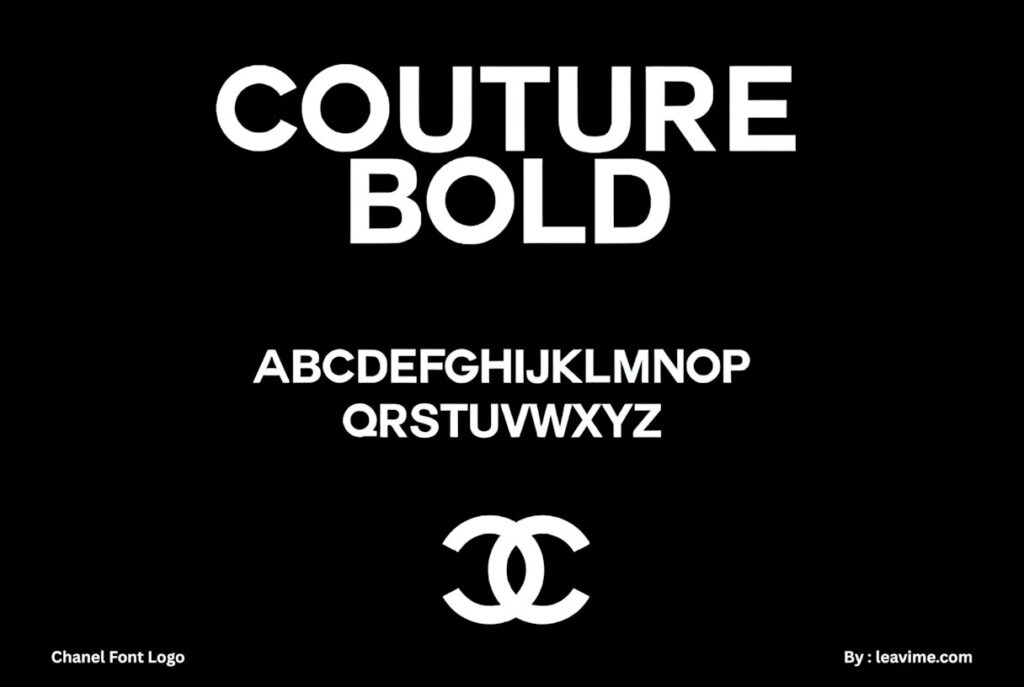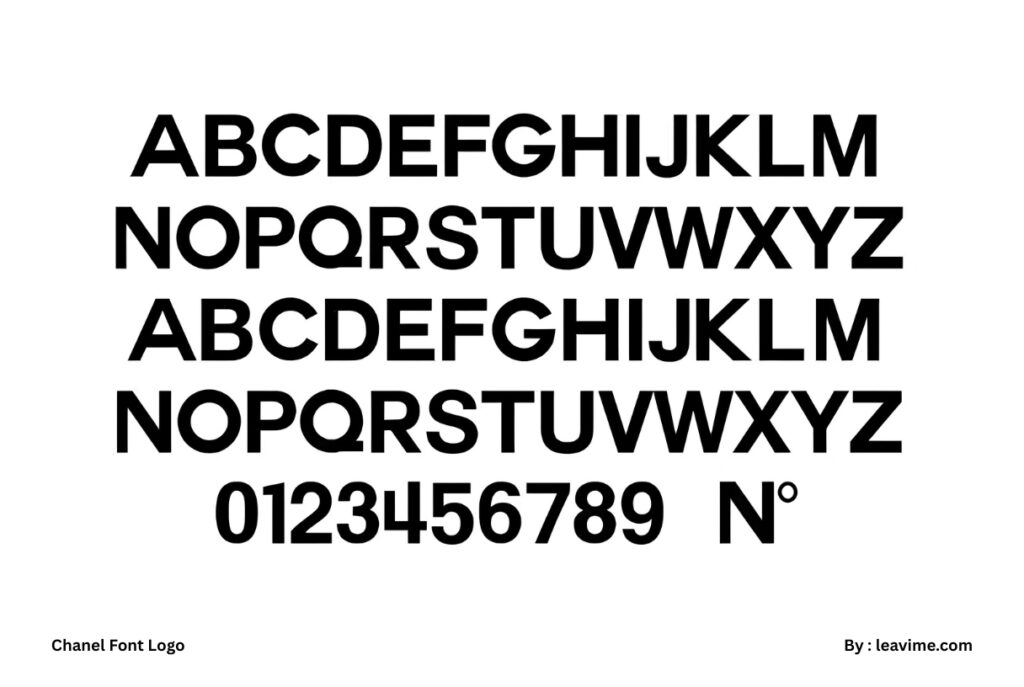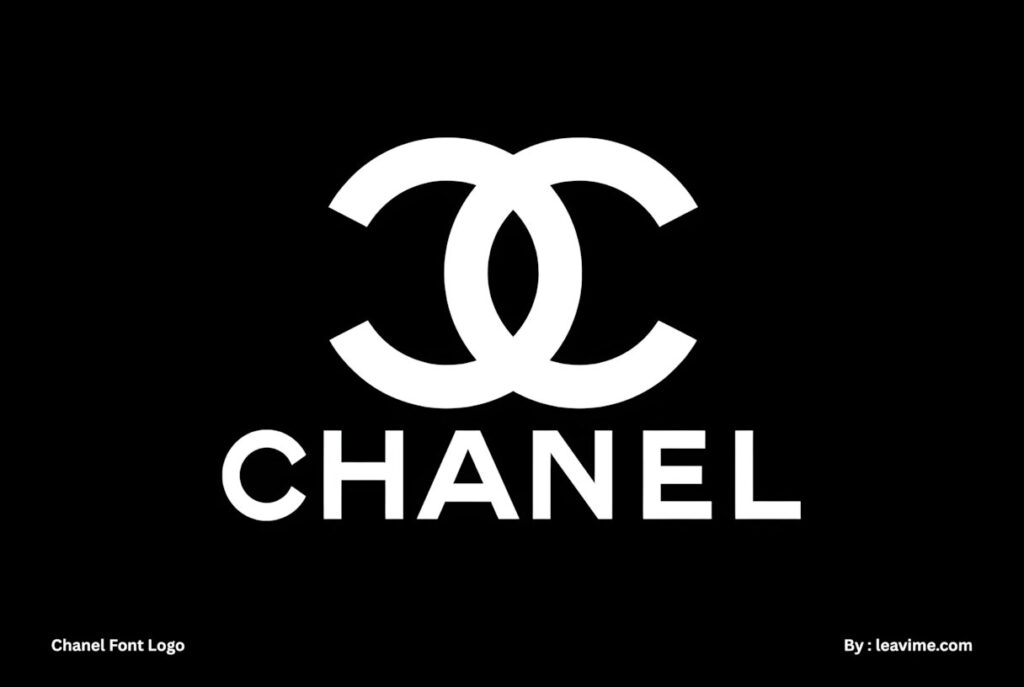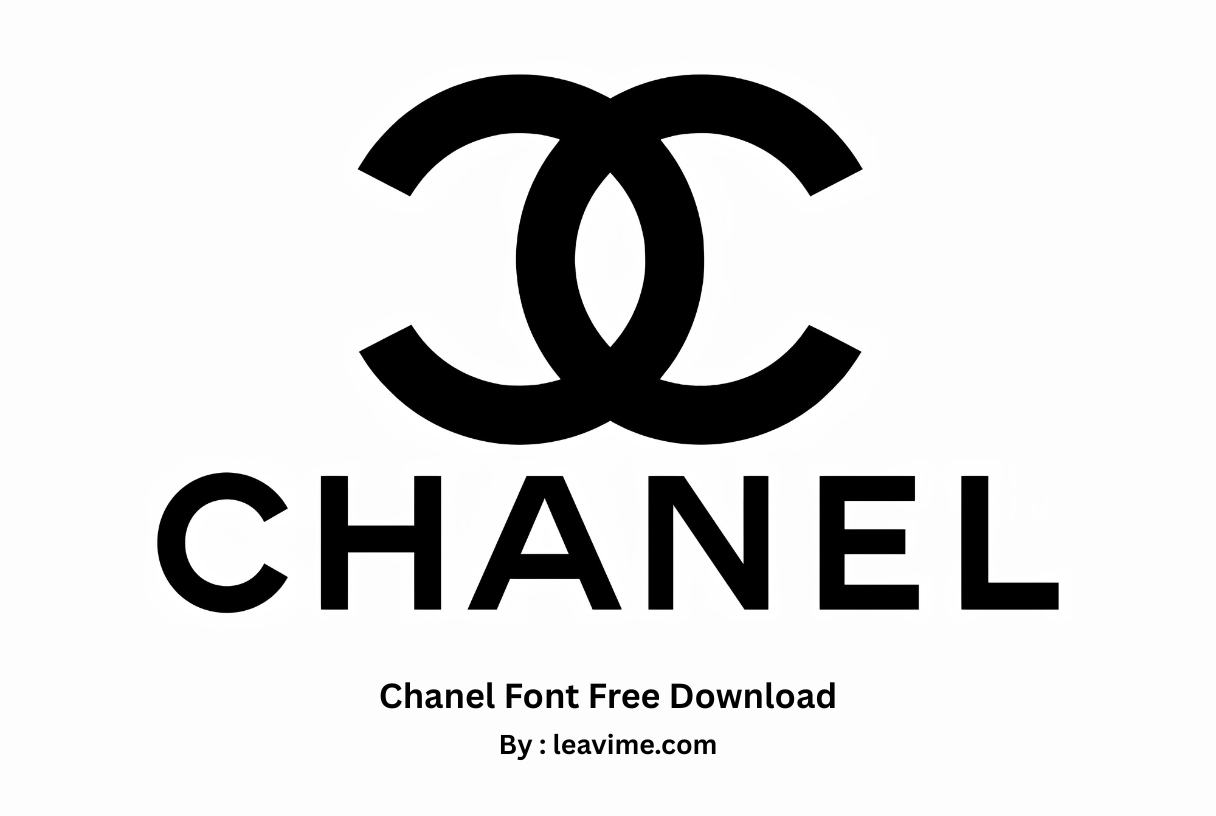
Chanel Logo Font
Chanel Font is a sophisticated typeface often associated with the timeless elegance of the famous fashion brand. Commonly recognized as Couture Font, it was designed by Chase Babb in 2012 and quickly became a favorite among designers looking for a refined luxury style. Although many people search for the Chanel Font, it is important to note that the official Chanel logo uses a custom lettering rather than a publicly available typeface. Couture Font captures a similar appearance with its elegant serif design, making it a popular alternative for branding and editorial projects. While many users also search for a sans serif font inspired by Chanel, Couture Font remains one of the closest matches thanks to its sophisticated proportions, sharp letterforms, and fashionable personality.
The typeface comes in Bold and Bold Italic styles, providing excellent flexibility for both print and digital projects. Every character was carefully crafted to create a balanced appearance with smooth curves and clean edges, making the family font suitable for luxury branding, magazine headlines, invitations, packaging, and premium promotional materials. Designers frequently choose this typeface when recreating the elegance of the Chanel logo because it delivers a similar fashion-inspired atmosphere without copying the original trademark. Whether you are creating stylish branding, editorial layouts, beauty product packaging, or elegant invitations, this font offers a professional appearance that reflects sophistication and modern luxury.
The popularity of Chanel Font is closely connected to the legendary French fashion house founded by Coco Chanel in 1909. Chanel transformed the fashion industry by introducing elegant yet comfortable clothing that changed how women dressed around the world. Over the decades, the brand expanded into haute couture, fragrances, handbags, jewelry, cosmetics, and accessories while maintaining its signature minimalist aesthetic. Because of this global recognition, designers often search for a luxury logo font that captures the same timeless appeal. Although Couture Font is not the official typeface used by the brand, it has become one of the most recommended alternatives for projects inspired by classic fashion design.
One of the reasons this font continues to attract designers is its remarkable versatility. The elegant serif structure works beautifully for logos, business cards, certificates, wedding invitations, book covers, magazine titles, cosmetic packaging, clothing labels, luxury advertisements, and premium product branding. The balanced spacing and carefully designed characters ensure excellent readability while preserving an upscale appearance. This combination allows the font to perform equally well in both large display headlines and carefully crafted branding elements.
Many creative professionals appreciate the font because it communicates prestige and confidence without appearing overly decorative. Its clean letterforms make it suitable for minimalist branding while still delivering a luxurious impression. Graphic designers often pair it with modern sans serif typefaces to create strong visual contrast, producing elegant layouts for fashion editorials, websites, portfolios, and marketing campaigns. This versatility makes it an excellent addition to any designer’s typography collection.
The influence of Chanel extends far beyond fashion. Throughout its history, the company has collaborated with internationally recognized celebrities, artists, and ambassadors who helped strengthen its global image. Personalities such as Nicole Kidman, Keira Knightley, and Audrey Tautou have represented Chanel in iconic advertising campaigns, reinforcing the brand’s association with elegance, confidence, and timeless beauty. These collaborations have also contributed to the continued popularity of typography inspired by luxury fashion aesthetics.
When searching online, users often enter terms such as logo for Chanel, logo of Chanel, or Chanel Font hoping to find the exact lettering used by the fashion house. In reality, the official logo is custom-designed and protected as part of the brand’s identity. However, Couture Font provides a visually similar experience for personal design inspiration, educational projects, and fashion-themed artwork without claiming to be the original typeface. Understanding this distinction helps designers choose an appropriate font while respecting intellectual property rights.
Overall, Chanel Font remains one of the most recognizable luxury-inspired serif typefaces available today. Its elegant proportions, refined details, and premium appearance make it an excellent choice for branding, editorial design, invitations, packaging, and fashion-related creative work. Whether you are designing a luxury logo, creating sophisticated marketing materials, or exploring typography inspired by high-end fashion, this font delivers timeless elegance and professional quality that continues to inspire designers worldwide.